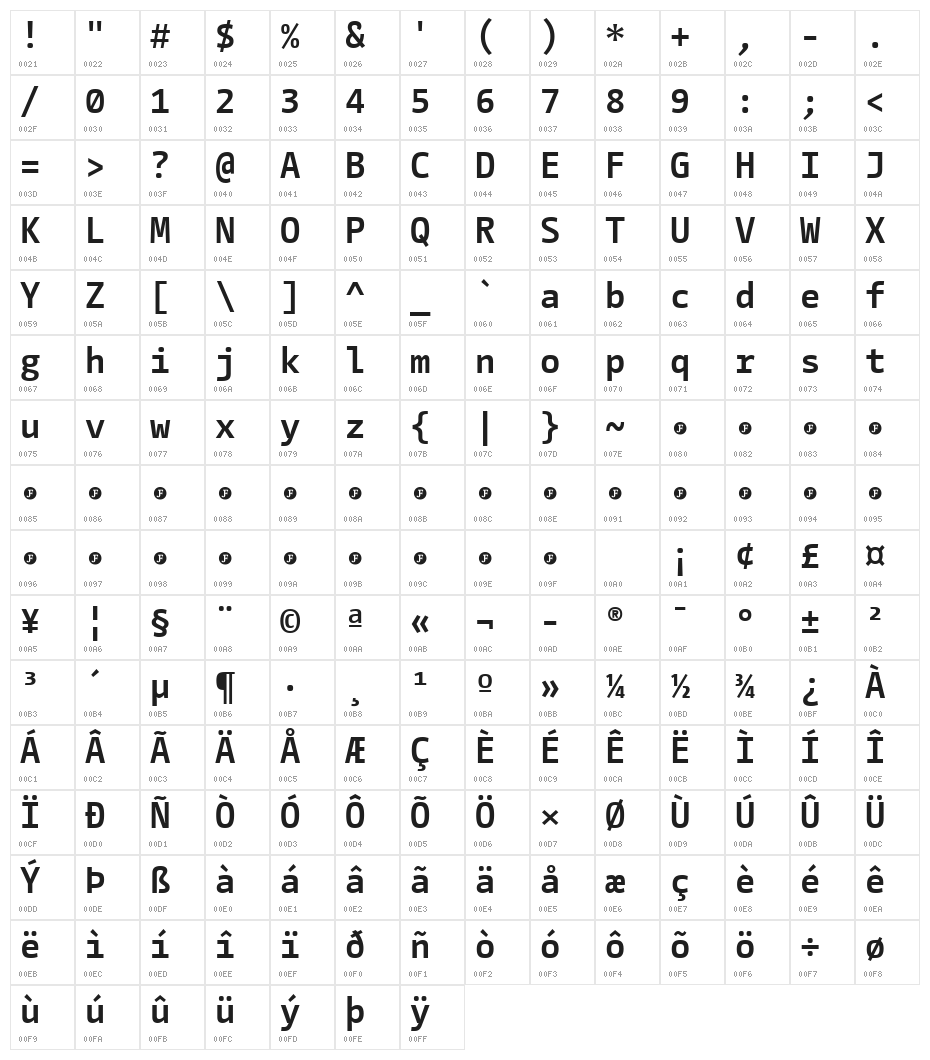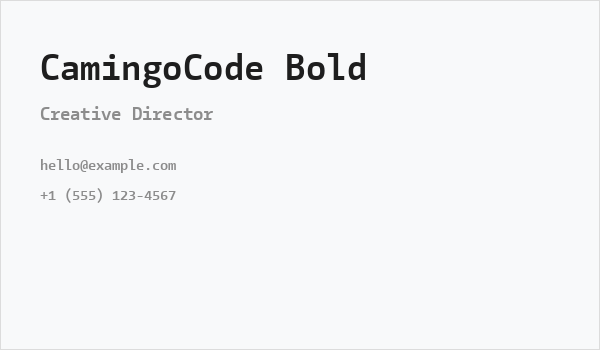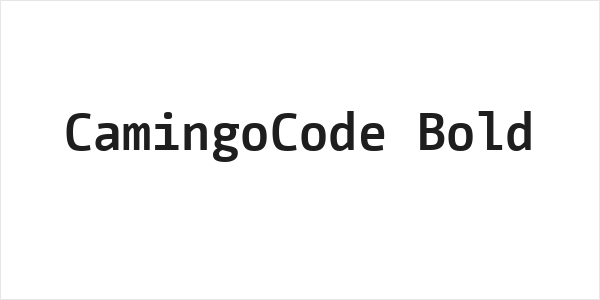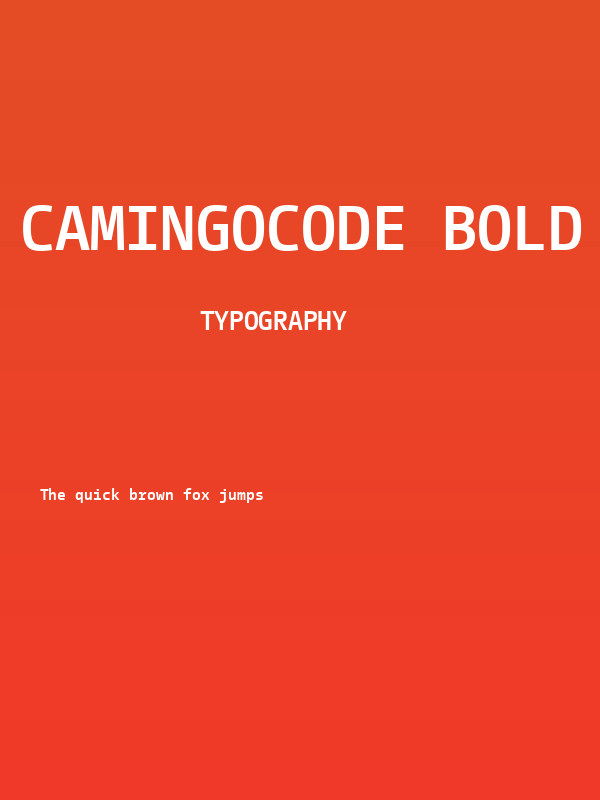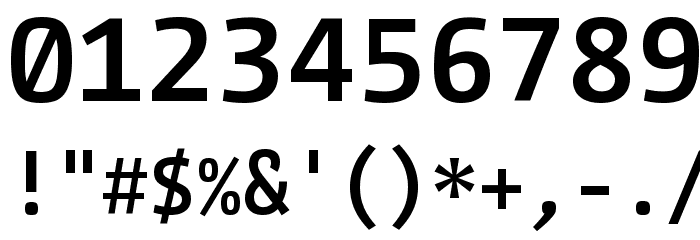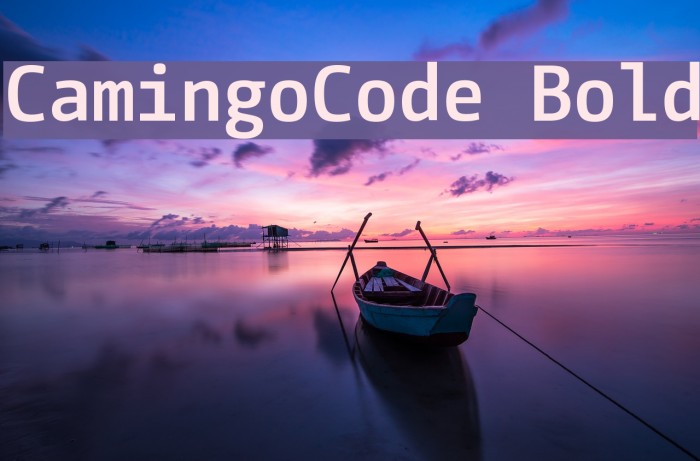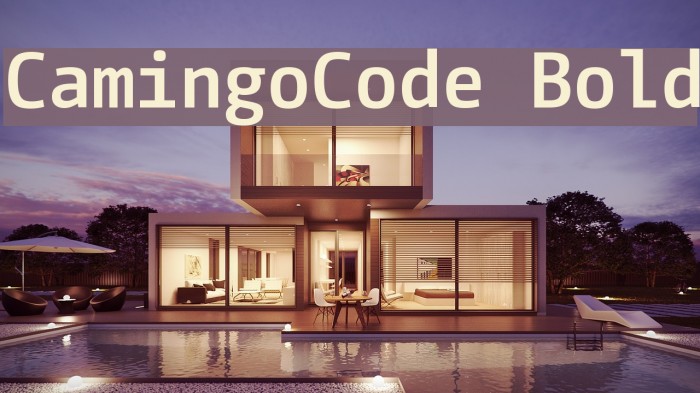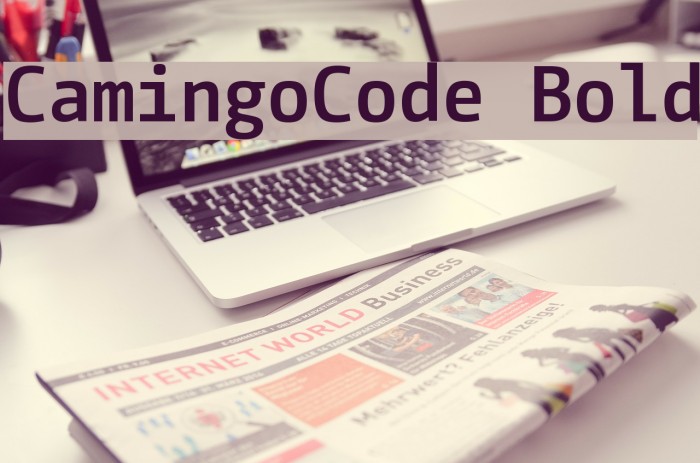
CamingoCode Bold Font
CamingoCode Bold Description
This font features a clean and modern design with a monospaced structure, making it ideal for coding and technical documentation. The characters are evenly spaced, ensuring clarity and readability. The uppercase letters are bold and assertive, while the lowercase letters maintain a consistent height, enhancing uniformity. The numerals are distinct and clear, which is crucial for data presentation. Special characters are well-defined, supporting a wide range of uses. Overall, the font's design is straightforward yet professional, suitable for both digital and print media.
| Use Case | Headlines, Body text, Logos, Coding |
| Proposed Projects | Perfect for coding environments, technical documentation, data presentation, and any project requiring a clear, monospaced font. |